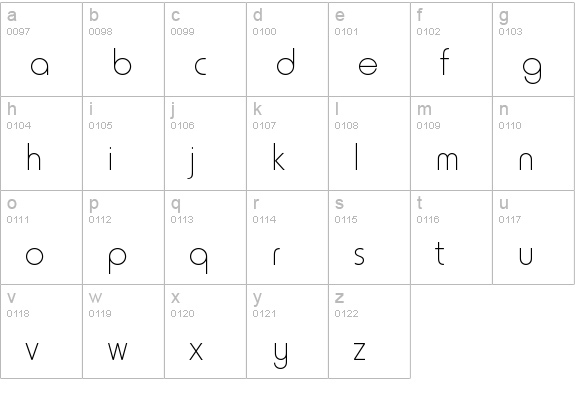
HoratioEF-Light Font Details
HoratioEF-Light is a refined, elegant variant in the HoratioEF typeface family \xE2\x80\x94 well suited to elegant body text, refined sub-headings, and luxury branding.
HoratioEF-Light font is a modern and elegant typeface that exudes sophistication and style. With its clean lines and distinctive letterforms, this font is perfect for adding a touch of class to any project. The light weight of HoratioEF-Light font gives it a delicate and refined appearance, making it ideal for use in a variety of design applications. Best of all, HoratioEF-Light font is available for free download at FontsMarket.com. This means you can easily access this beautiful typeface without any cost, making it a fantastic option for both personal and commercial projects. Don't miss out on the opportunity to enhance your designs with the timeless elegance of HoratioEF-Light font – download it today and elevate your creative work to new heights.